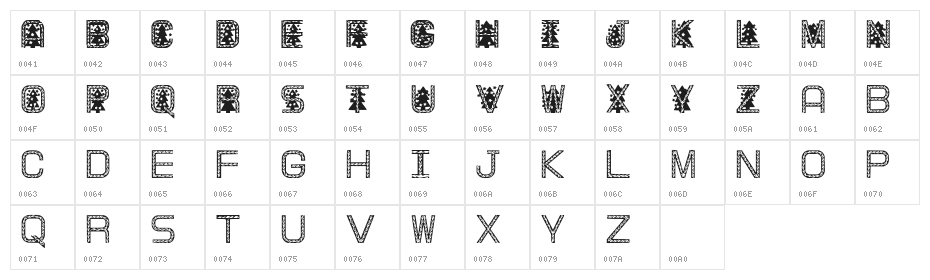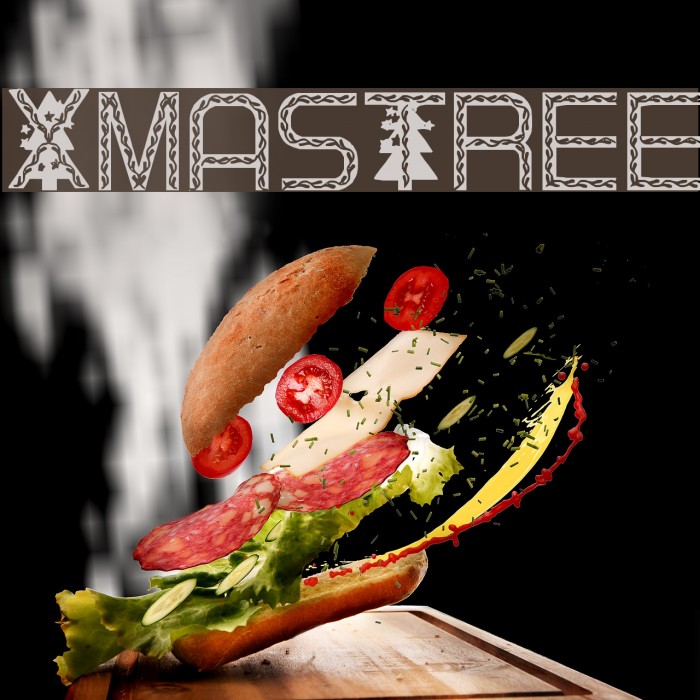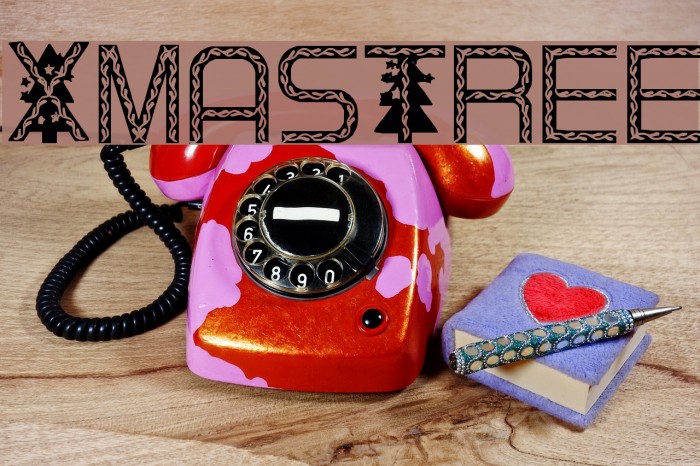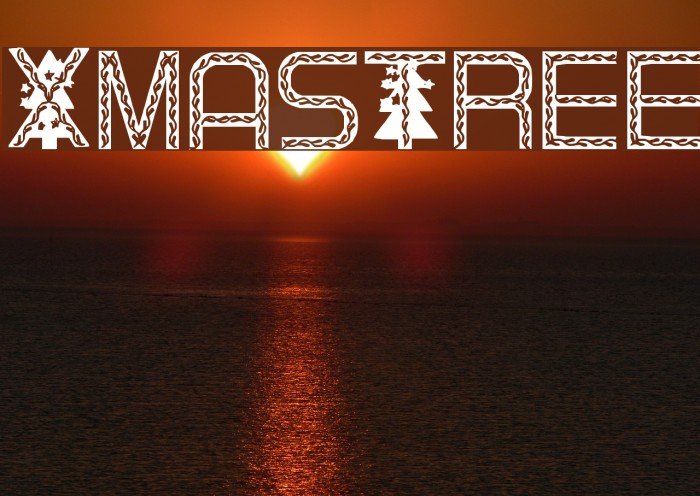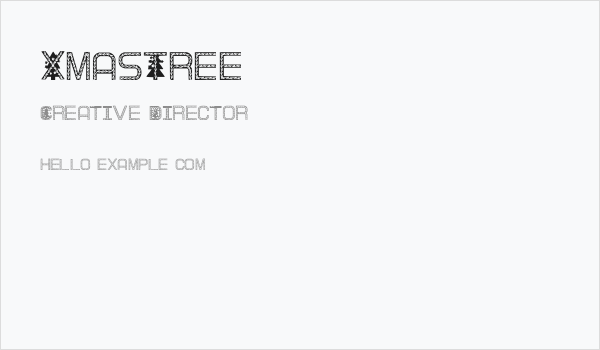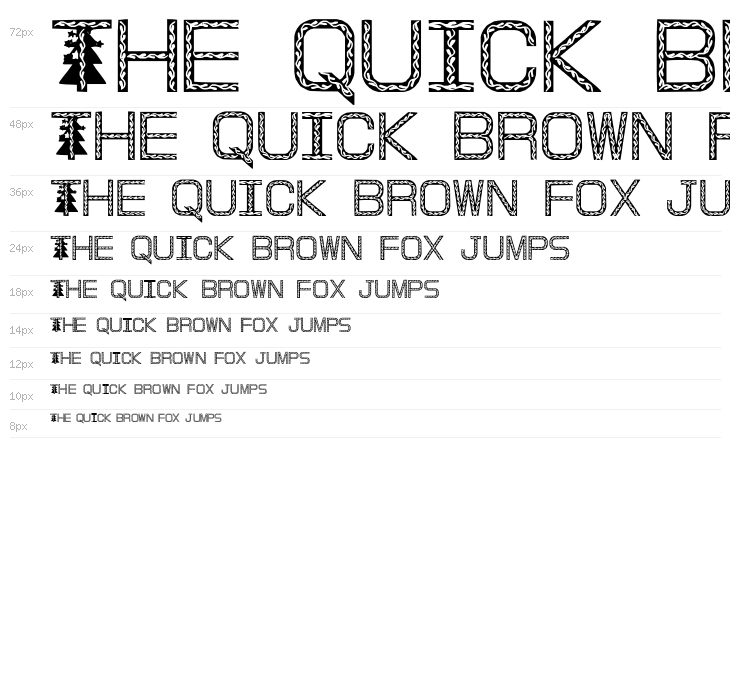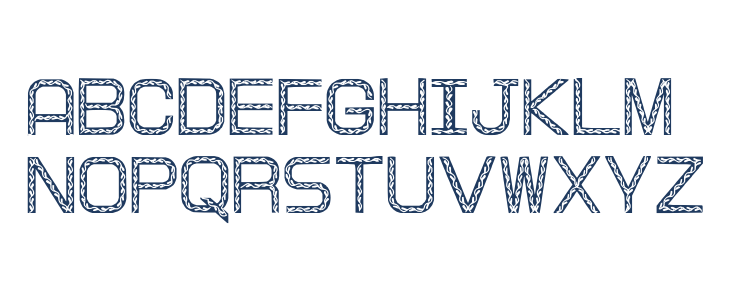
XmasTree Font
XmasTree Description
This decorative font features a festive theme, incorporating Christmas tree motifs within each letter. The uppercase letters are bold and filled with intricate tree patterns, creating a playful and seasonal look. The design is highly detailed, with each character showcasing a unique arrangement of tree shapes, adding to the overall whimsical and holiday-inspired aesthetic. The font is perfect for capturing the spirit of Christmas, making it ideal for holiday-themed projects. The characters are well-defined, ensuring readability despite the complex patterns. This font is a great choice for adding a touch of festive cheer to any design.